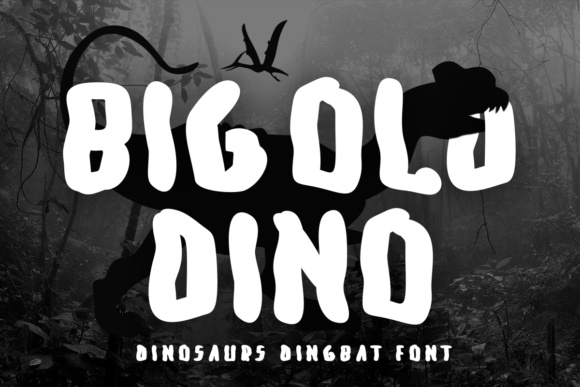
The Prehistoric Charm of Big Old Dino Font
I’ll never forget the time I was working on a project for a client’s dinosaur-themed birthday party. I was determined to create a fun and playful design, but I was struggling to find the perfect font. That’s when I stumbled upon Big Old Dino Font, a stone-age inspired font that instantly transported me back to the Mesozoic era. With its 26 rock-hard uppercase letters and 26 lowercase dinosaur dingbats, I knew I had found the perfect match.
So, what do I love about Big Old Dino Font? Here are a few things that make it a standout:
• ✨ Unique and quirky design that’s perfect for creative projects
• ✅ Rock-hard uppercase letters that add a touch of ruggedness to any design
• 🌟 26 lowercase dinosaur dingbats that add a fun and playful touch
Of course, no font is perfect, and Big Old Dino Font has a few quirks:
• 🤔 Limited character set, which may not be suitable for projects that require a wide range of characters
• ⚠️ Some users may find the font a bit too bold or overpowering for certain designs
The Designer Inspiration Behind Big Old Dino Font
The story behind Big Old Dino Font is a fascinating one. According to the designer, the font was inspired by a childhood love of dinosaurs and a passion for stone-age art. The designer wanted to create a font that captured the raw energy and playfulness of the Mesozoic era, and Big Old Dino Font is the result.
Q: What type of projects is Big Old Dino Font best suited for? A: Big Old Dino Font is perfect for creative projects that require a fun and playful touch, such as children’s party invitations, dinosaur-themed designs, and stone-age inspired artwork.